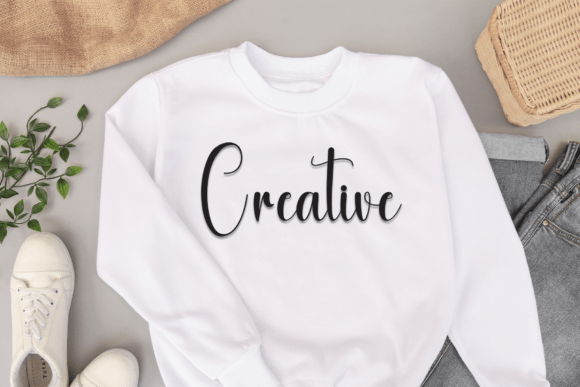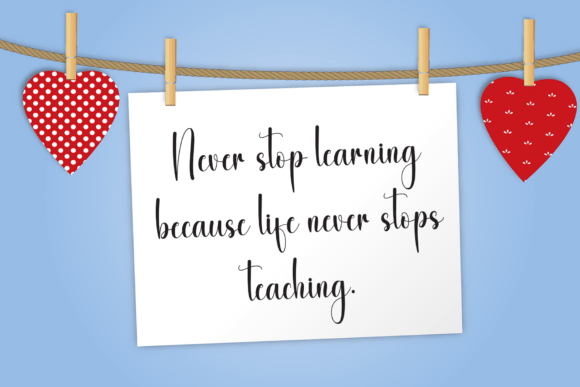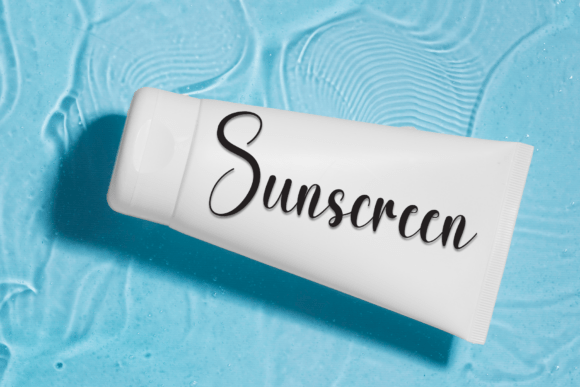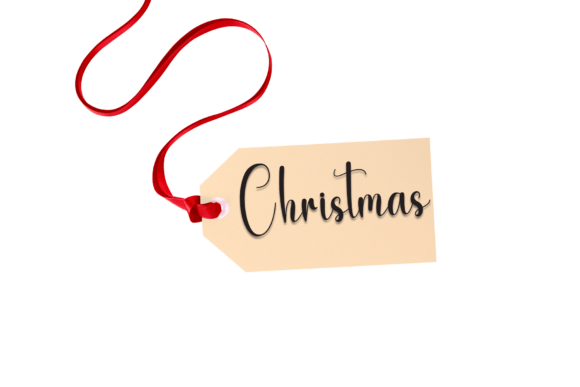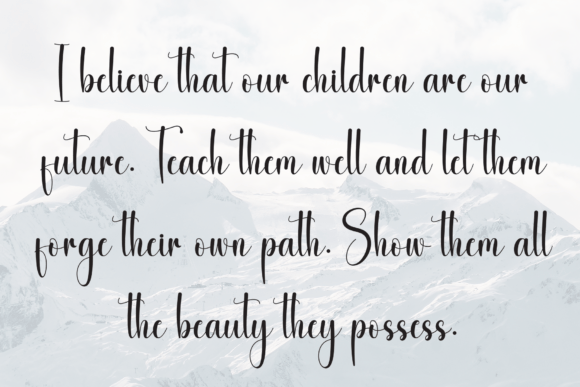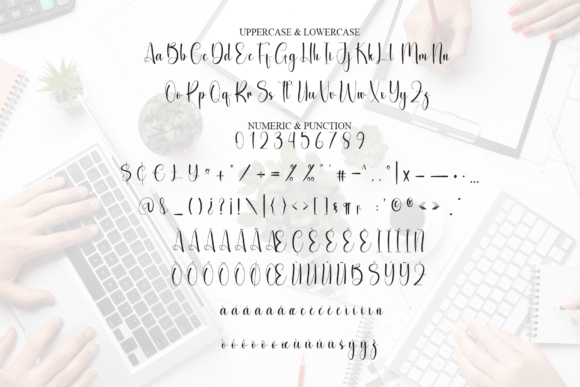
Introducing Dutty Font: Elevate Your Designs with Artistic Flair and Contemporary Elegance
In the world of typography, fonts play a crucial role in conveying the tone and personality of a design. For designers and crafters looking to add a touch of sophistication and creativity to their work, Dutty Font is an exceptional choice. This stylish script font is designed to exude artistic flair and contemporary elegance, making it perfect for a wide range of design applications.
The Characteristics of Dutty Font
Dutty Font boasts fluid brush strokes, dynamic curves, and expressive letterforms that capture the essence of hand-painted calligraphy with a modern twist. The font’s natural flow and vibrant character make it an excellent choice for designers seeking to add a creative and sophisticated touch to their work. Whether you’re creating logos, invitations, packaging, or social media graphics, Dutty Font delivers both visual impact and versatility.
Key Features of Dutty Font
- Fluid Brush Strokes: Dutty Font features fluid brush strokes that give it a natural, hand-painted look. This characteristic makes it perfect for designs that require a personal touch.
- Dynamic Curves: The font’s dynamic curves add a level of sophistication and elegance, making it suitable for high-end designs.
- Expressive Letterforms: Each letterform in Dutty Font is uniquely designed to convey a sense of artistic flair, ensuring that your designs stand out from the crowd.
- Modern Twist: While Dutty Font is inspired by traditional hand-painted calligraphy, it has a modern twist that makes it perfect for contemporary designs.
Design Applications for Dutty Font
Dutty Font is an incredibly versatile font that can be used in a variety of design applications. Here are some of the most popular uses for this stylish script font:
- Logos: Dutty Font is perfect for creating unique and memorable logos that require a touch of sophistication and elegance.
- Invitations: Whether you’re designing wedding invitations, birthday invitations, or any other type of invitation, Dutty Font is an excellent choice.
- Packaging: Add a creative and sophisticated touch to your product packaging with Dutty Font.
- Social Media Graphics: Dutty Font is perfect for creating eye-catching social media graphics that require a level of artistic flair and contemporary elegance.
Benefits of Using Dutty Font
There are several benefits to using Dutty Font in your designs. Here are a few:
- Unique and Memorable: Dutty Font is a unique and memorable font that will help your designs stand out from the crowd.
- Versatile: Dutty Font is incredibly versatile and can be used in a wide range of design applications.
- Easy to Read: Despite its artistic and elegant nature, Dutty Font is easy to read, making it perfect for designs that require a level of sophistication and legibility.
- Customizable: Dutty Font can be customized to fit your design needs, allowing you to add your own personal touch.
Tips for Using Dutty Font Effectively
Here are a few tips for using Dutty Font effectively in your designs:
- Use it Sparingly: While Dutty Font is a beautiful font, it’s best to use it sparingly to avoid overwhelming your design.
- Pair it with Other Fonts: Dutty Font pairs well with other fonts, so don’t be afraid to experiment with different font combinations.
- Experiment with Colors: Dutty Font looks great in a variety of colors, so experiment with different colors to find the one that works best for your design.
In conclusion, Dutty Font is a stylish script font that exudes artistic flair and contemporary elegance. With its fluid brush strokes, dynamic curves, and expressive letterforms, it’s perfect for designers and crafters looking to add a creative and sophisticated touch to their work. Whether you’re creating logos, invitations, packaging, or social media graphics, Dutty Font delivers both visual impact and versatility. So why not give Dutty Font a try and elevate your designs to the next level?